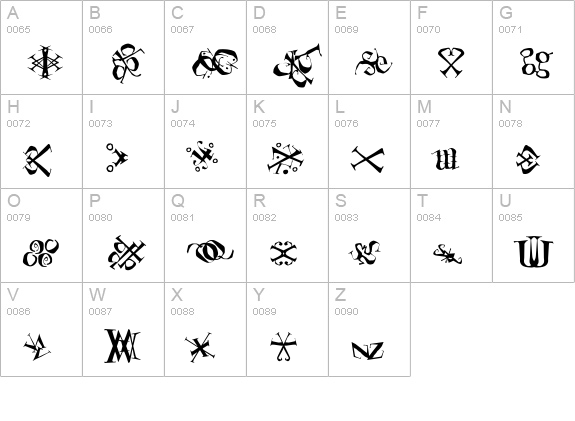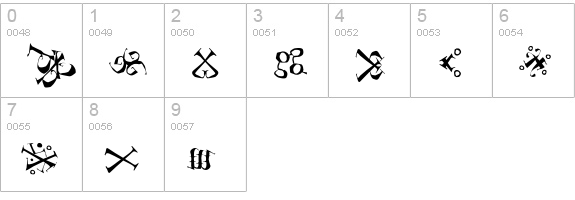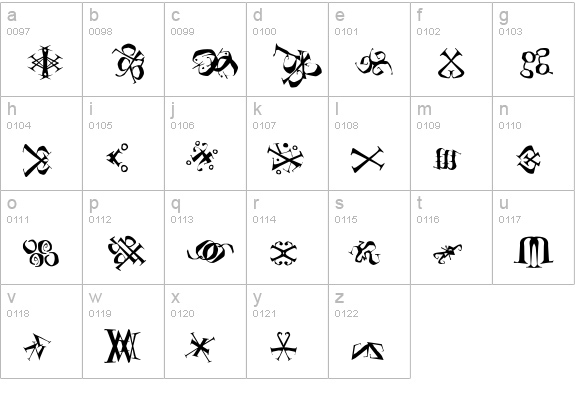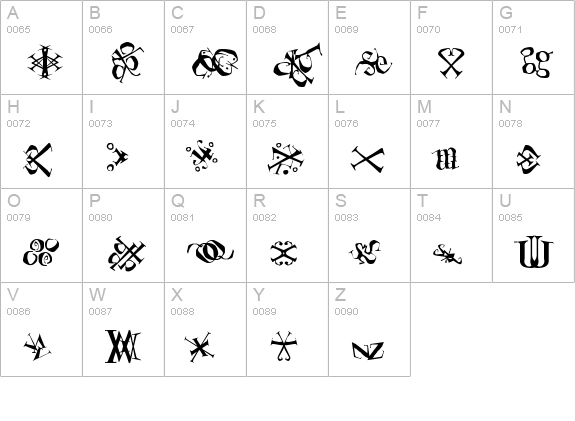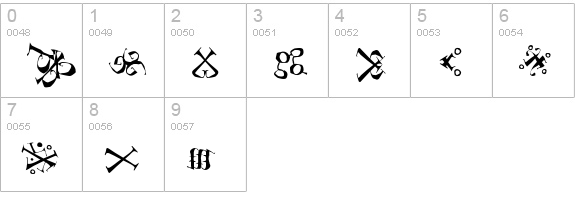
Tacklebox Font Details
Tacklebox font is a stunning typeface that effortlessly combines boldness and elegance. With its strong strokes and clean lines, this font is perfect for making a powerful statement in any design project. Whether you're creating eye-catching headlines, striking logos, or captivating posters, Tacklebox font is sure to leave a lasting impression. This versatile font offers a range of weights and styles, allowing you to customize your typography to suit your specific needs. From the sleek and modern Thin weight to the impactful and commanding Bold weight, Tacklebox font offers endless possibilities for creative expression. One of the best things about Tacklebox font is that it is completely free! Yes, you read that right. This incredible font is freely available to download at FontsMarket.com. Now you can add this amazing typeface to your collection without spending a dime. So why wait? Download Tacklebox font today and unleash your creativity with this exceptional font. Whether you're a professional designer or a passionate hobbyist, Tacklebox font is a must-have in your font library. Don't miss out on the opportunity to elevate your designs with this remarkable and free font.